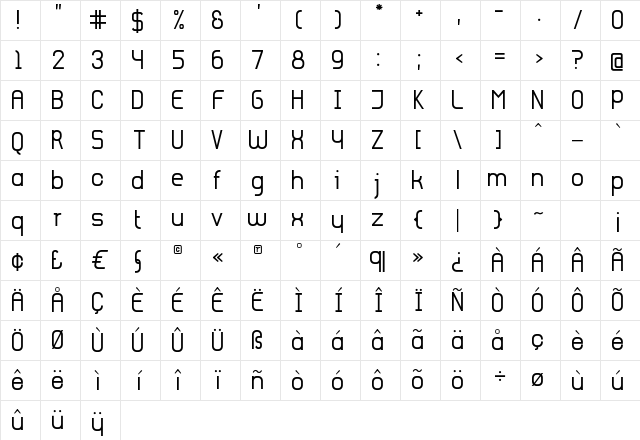
Eiko-Regular Regular
Design Context for Eiko-Regular
Eiko-Regular is a composed and adaptable typeface that performs quietly and consistently across a wide range of design contexts.